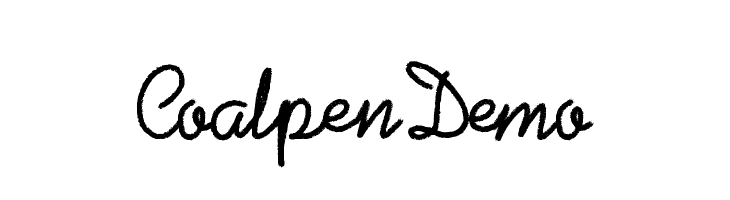
A lively handwritten script with fluid, connected strokes and medium contrast.
A bold, cursive font with a dynamic and energetic handwritten style.
A bold, hand-drawn script font with a playful and artistic style.
A lively, flowing script font with elegant, cursive letterforms.
A dynamic cursive script font with fluid, connected letters and varied stroke thickness.